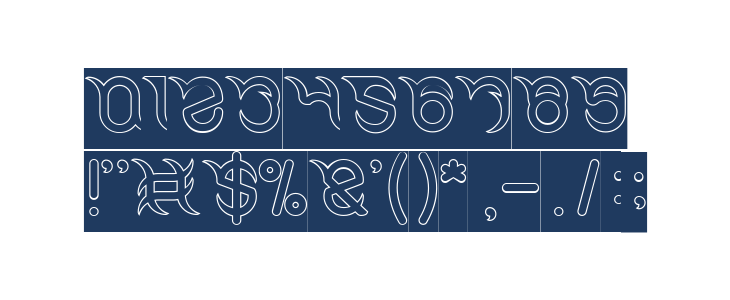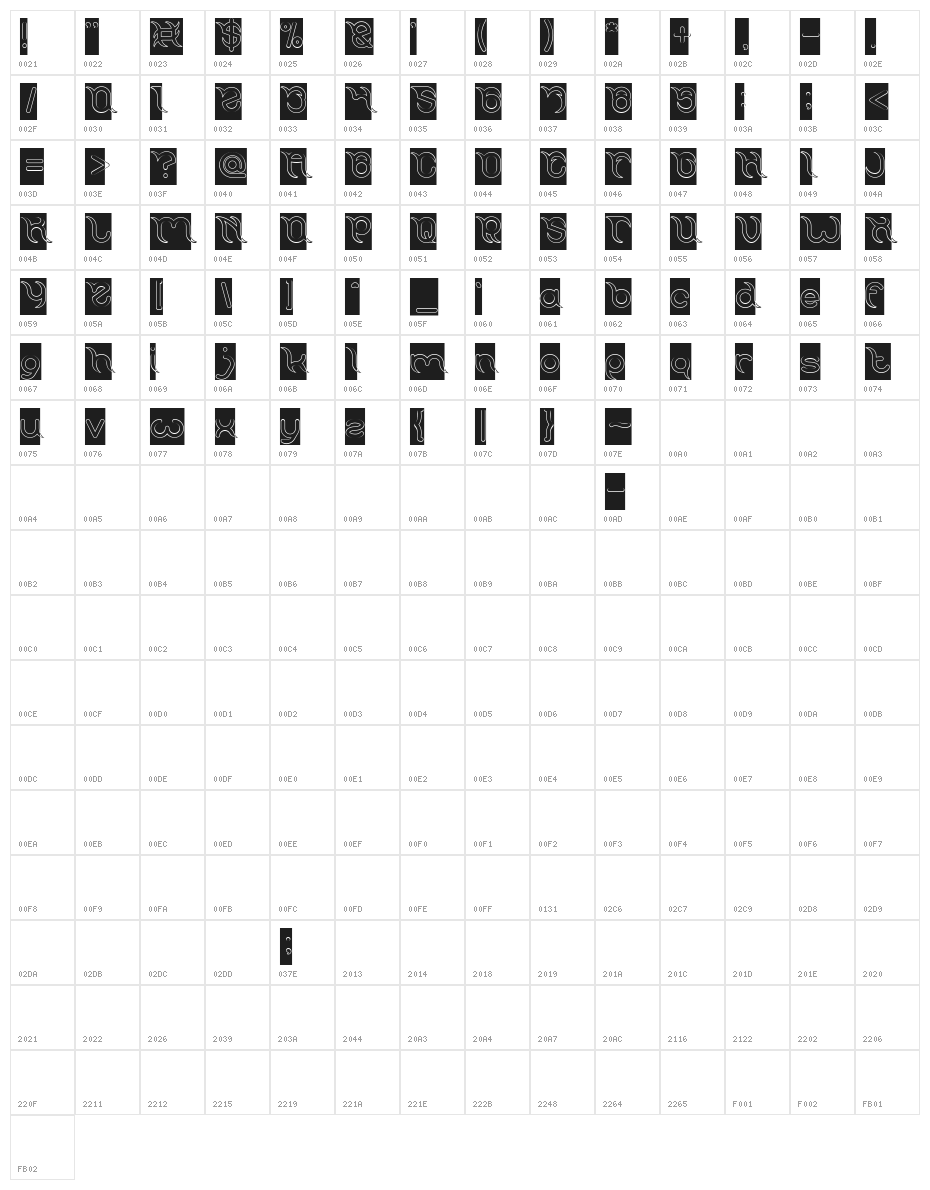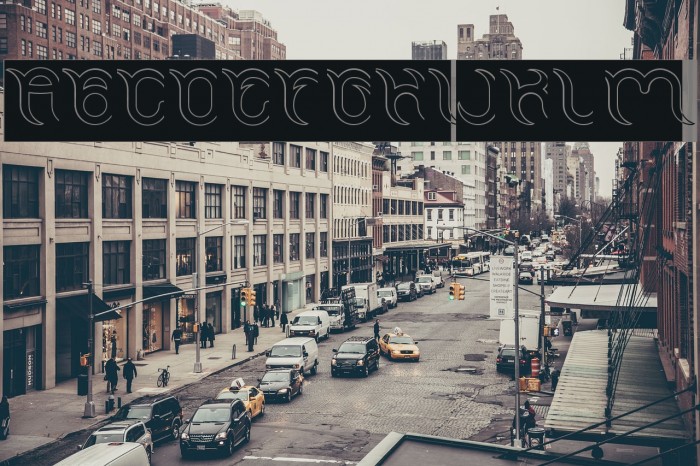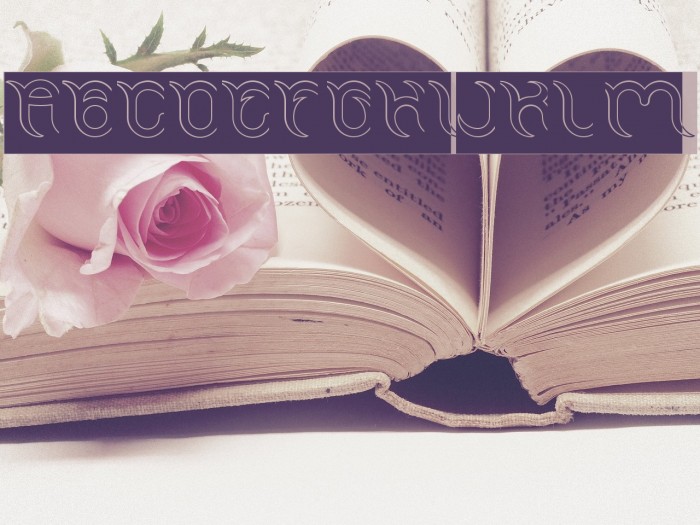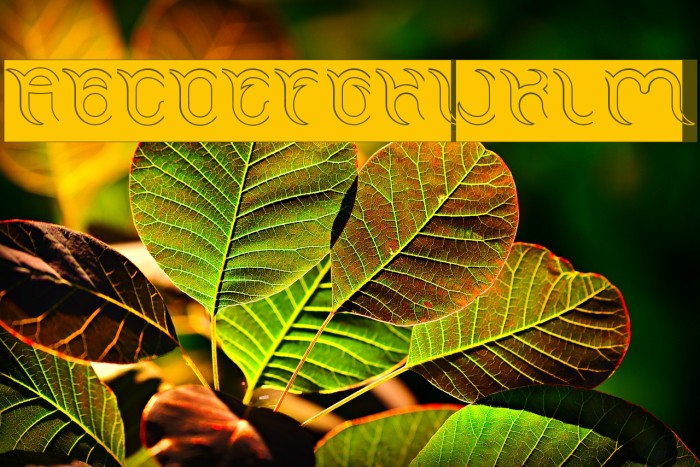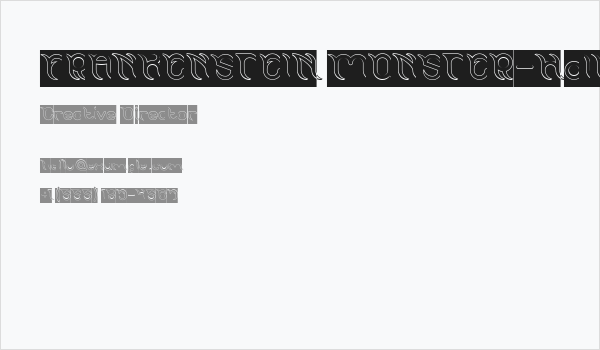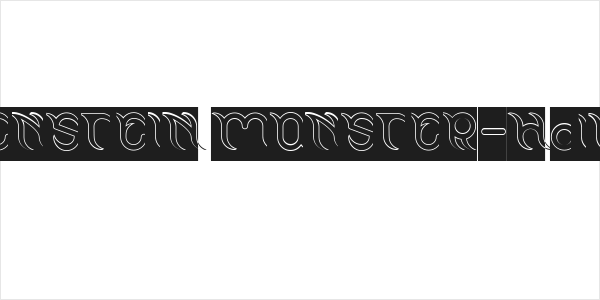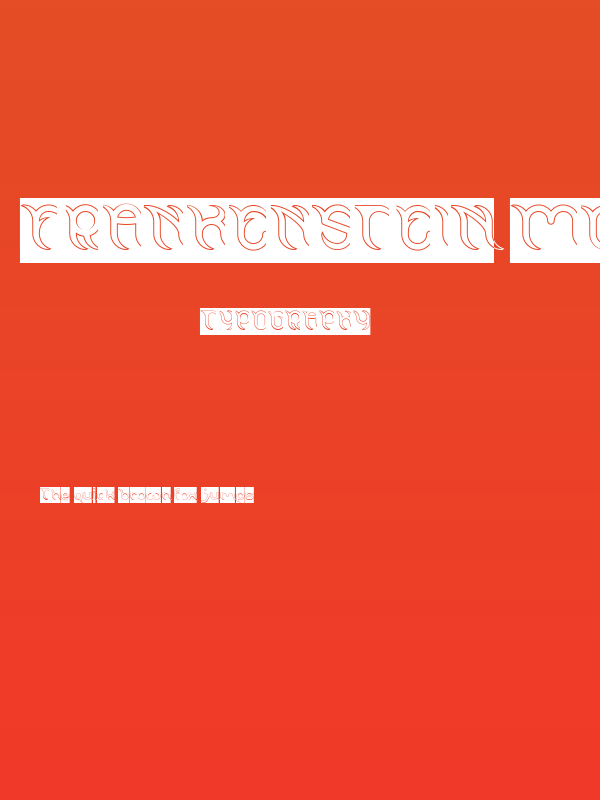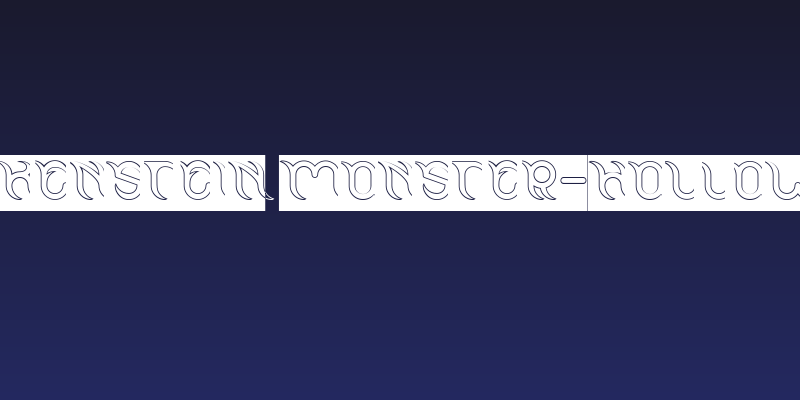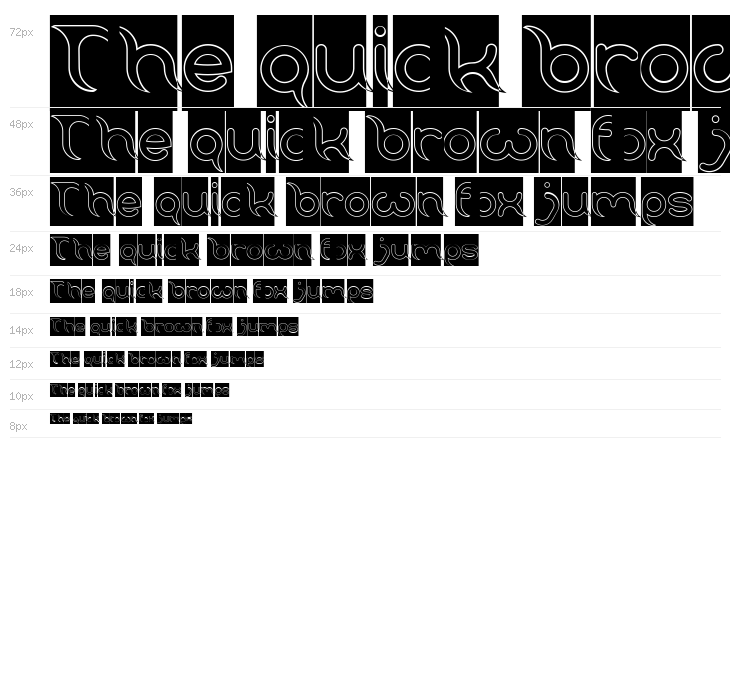
FRANKENSTEIN MONSTER-Hollow-Inv Font
FRANKENSTEIN MONSTER-Hollow-Inv Description
This font features a unique hollow design with a bold, decorative style. Each character is outlined with a thick stroke, creating a striking visual effect. The letters have a playful, almost whimsical appearance, with curved lines and pointed ends that give them a dynamic and energetic feel. The uppercase and lowercase letters maintain a consistent style, while the numbers and special characters complement the overall aesthetic. This font's distinct look makes it ideal for creative projects that require a standout typeface.
| Proposed Projects | Ideal for Halloween-themed designs, posters, logos, and creative branding projects. |